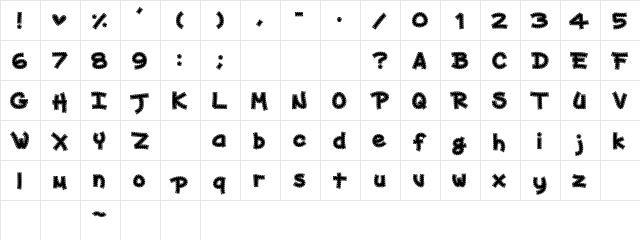
AKApprique Black Regular
Design Context for AKApprique Black Typeface
AKApprique Black is a composed and adaptable typeface that performs quietly and consistently across a wide range of design contexts.